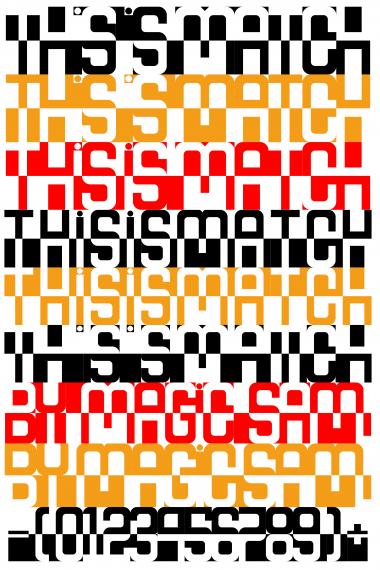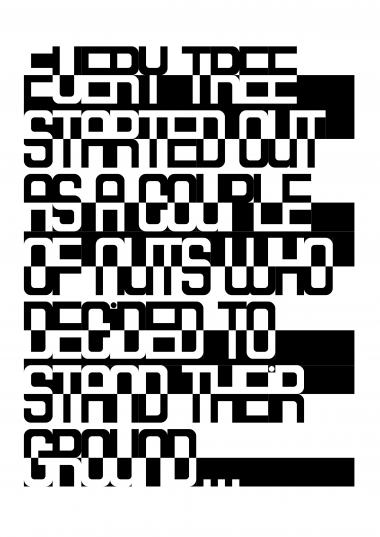
Great concept ... great execution ... great sample :-)
Here´s another sample, just to demonstrate the diversity:
wow. this is an eye-opener :) very dynamic and stylish. a solid package as usual.
Very nice design. Considering the tiny size of the grid it is even more impressive. It would be interesting to see some PS 3D effect, plus lighting on the letters (but not on the background). 10/10
PS.: Your color sample looks like a painting, unless my eyes are cheated by jpeg artefacs. :))
Congratulations! FontStruct Staff have deemed your FontStruction worthy of special mention. “Match” is now a Top Pick.
I missed this the first time around. Great work.
Great Font!